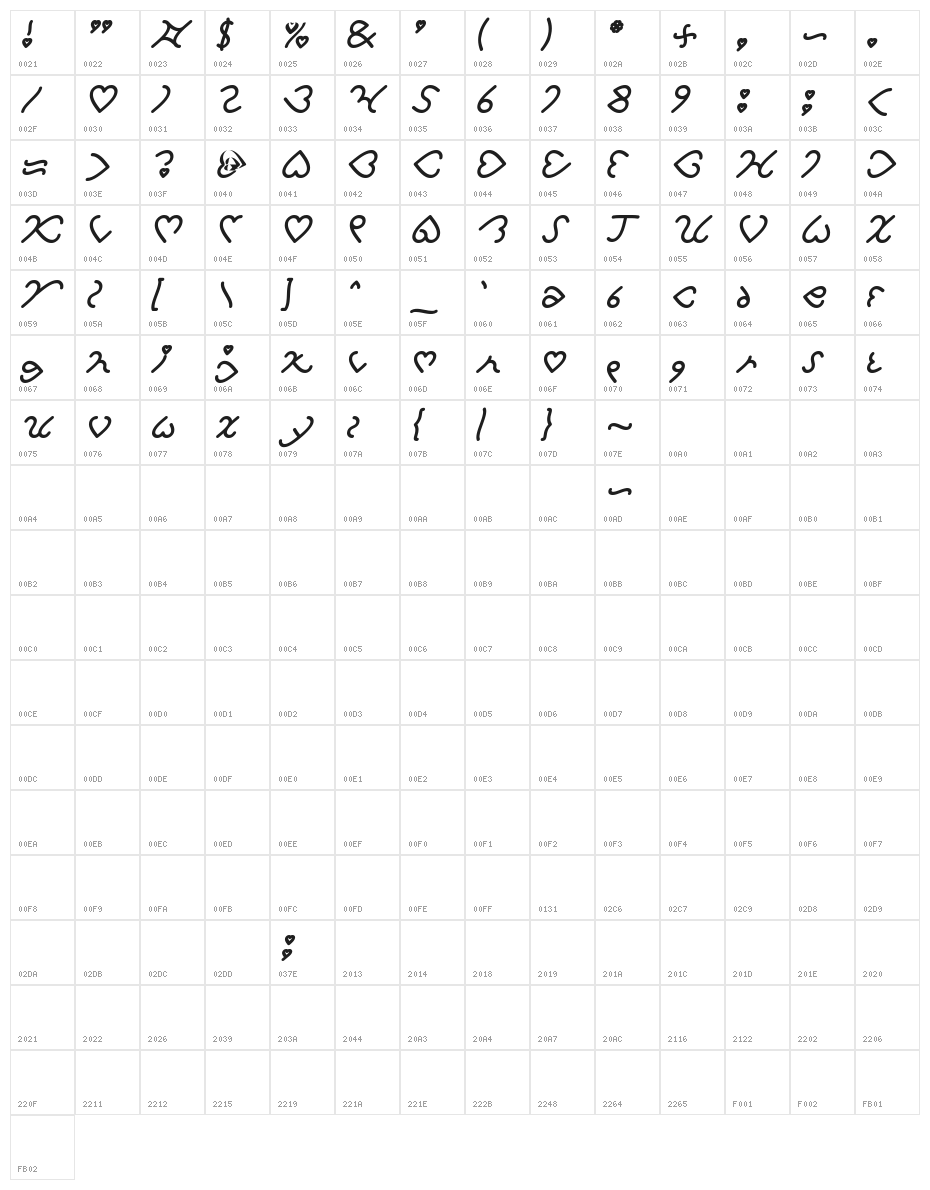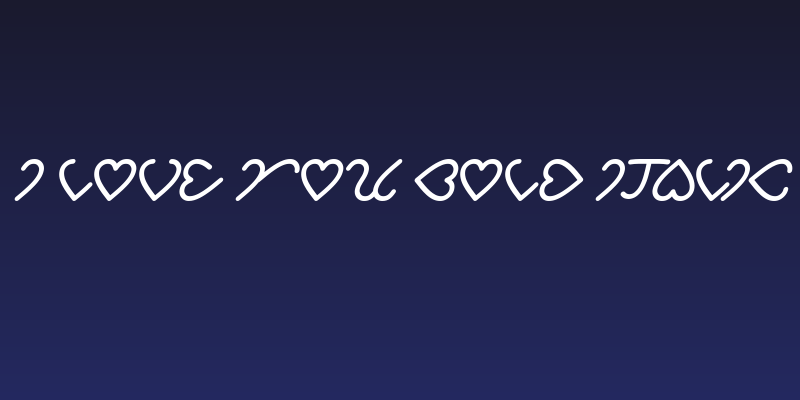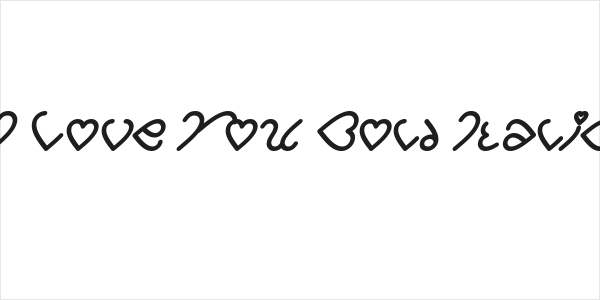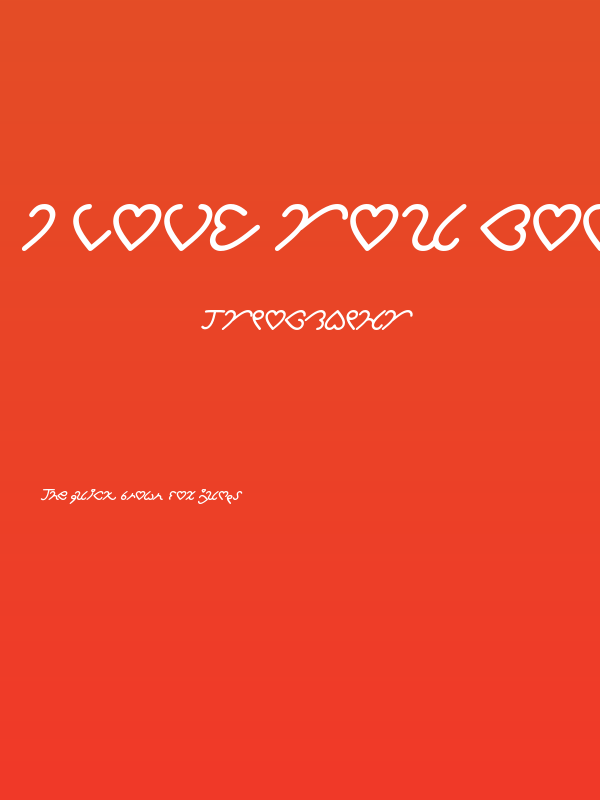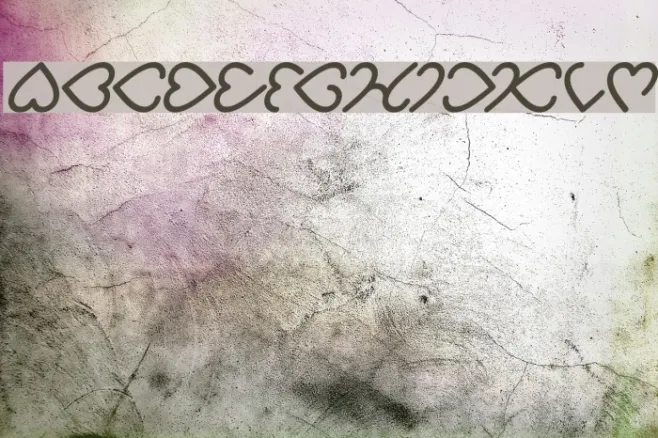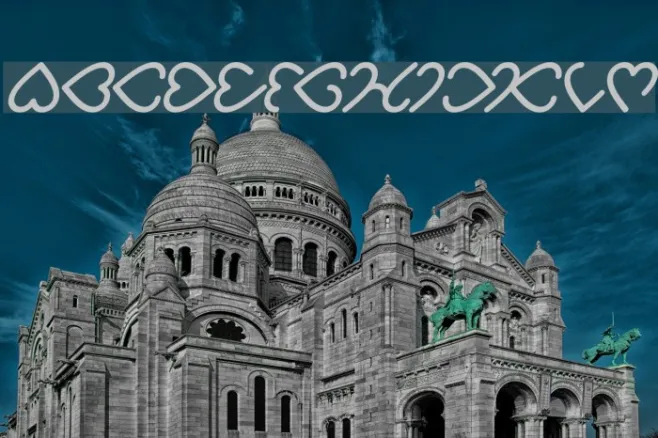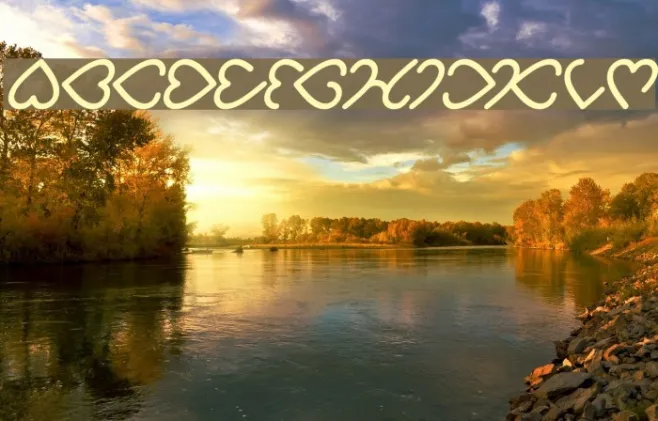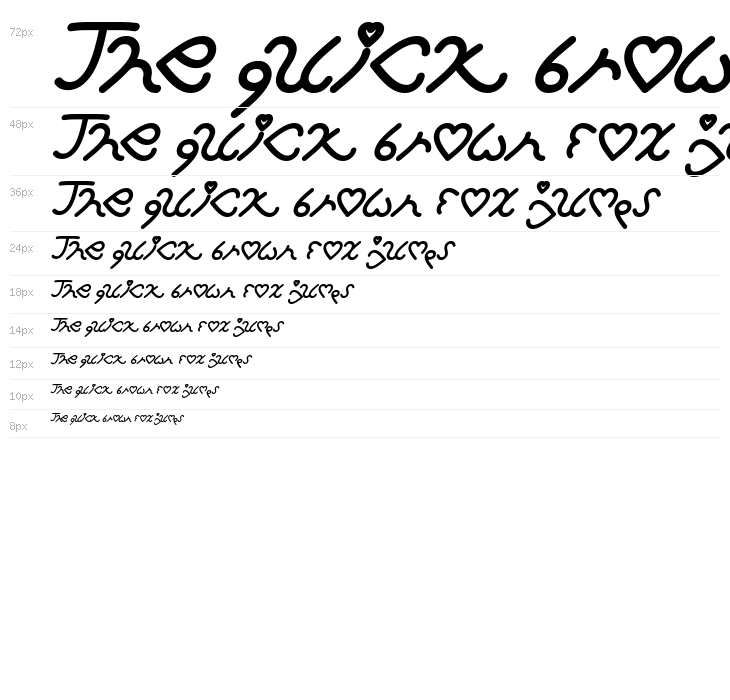
I Love You Bold Italic Font
I Love You Bold Italic Description
This playful and romantic font features heart-shaped elements integrated into each character, creating a whimsical and affectionate appearance. The strokes are bold and smooth, with a consistent flow that adds to its charm. The letters are slightly italicized, enhancing the dynamic and lively feel. This font is perfect for conveying love and warmth, making it ideal for romantic themes. The numbers and special characters maintain the same heart-infused style, ensuring a cohesive look across all text elements.
| Overall Style | Romantic, Playful |
| Proposed Projects | Ideal for Valentine's Day cards, wedding invitations, love letters, and romantic branding. |